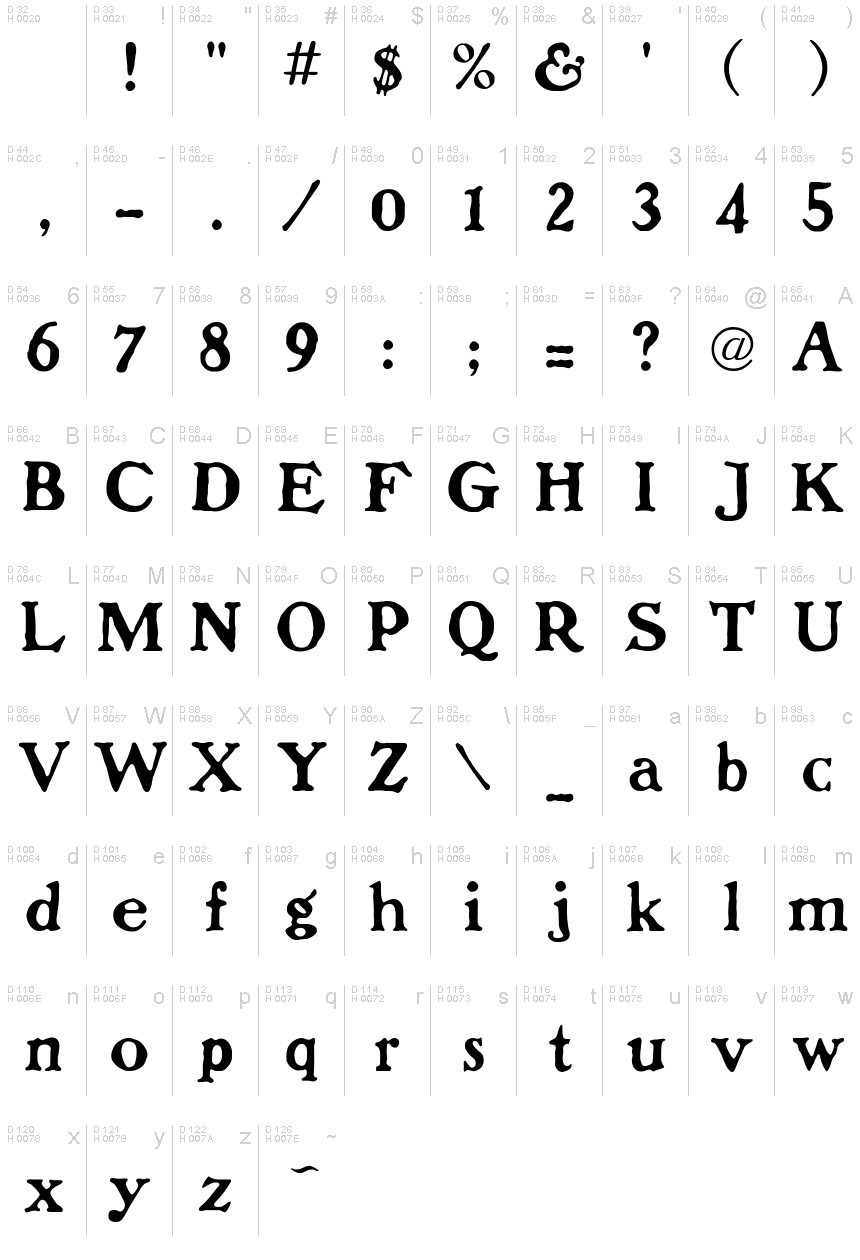
Dolenzo J
Dolenzo J is a captivating display font that exudes an enigmatic, weathered charm. Designed by Immortalware JTHZ, this font's defining feature is its eroded aesthetic, lending an air of vintage elegance and character. The sharp, angular letterforms juxtaposed with the textured, distressed appearance create a striking visual contrast, making Dolenzo J a versatile choice for a wide range of design applications, from eye-catching headlines and logos to atmospheric branding and editorial layouts.
This font's unique style lends itself particularly well to projects seeking to convey a sense of history, authenticity, or industrial chic. Its rugged yet refined look can elevate designs in the realms of fashion, music, and the arts, as well as various other creative industries where a distinctive, impactful typographic treatment is desired.